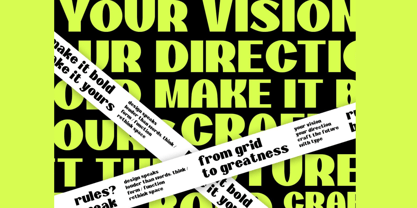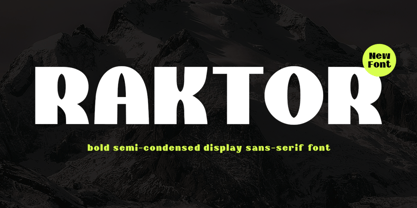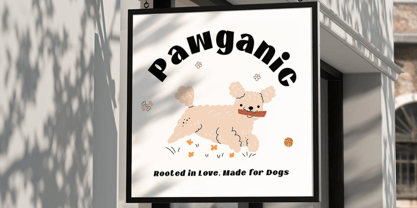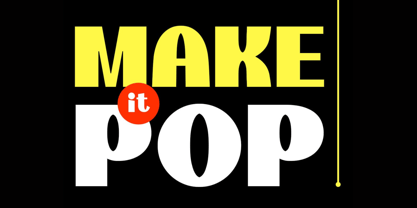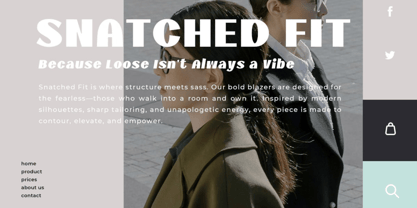
Teczor
by Hasnat Studio
The Teczor Font Family was designed by Hasnat Khan and published by Hasnat Studio. Teczor contains 1 styles. More about this family
Teczor is a powerful semi-condensed sans serif display font designed to command attention with thick, geometric letterforms and a sleek modern structure. Built for impact and clarity, Teczor excels in bold headlines, striking posters, cutting-edge branding, and eye-catching digital layouts.
With its unique semi-condensed design, Teczor offers a compact yet strong appearance, perfect for projects that need to deliver bold messaging while conserving space. Its clean lines and professional aesthetic make it a reliable tool for graphic designers, brand strategists, and creatives looking to elevate their visual communication.
Key Features:
• Bold Semi-Condensed Sans Serif Style – Designed for maximum visual impact
• Modern Geometric Letterforms – Delivers sharpness and clarity
• Uppercase & Lowercase Characters – Full letter range for versatile design
• Numbers & Punctuation – Essential for professional layouts
• Clean & Space-Efficient – Ideal for tight compositions with strong visibility
Perfect For:
• Modern Branding & Visual Identity
• Tech, Gaming & Startup Design
• Headline Typography & Advertising
• Digital Interfaces & Web Layouts
• Editorial & Magazine Design
• Posters, Flyers & Display Graphics
Make your message bold, modern, and unforgettable with Teczor—the semi-condensed sans serif font that delivers style, structure, and strength in every character.